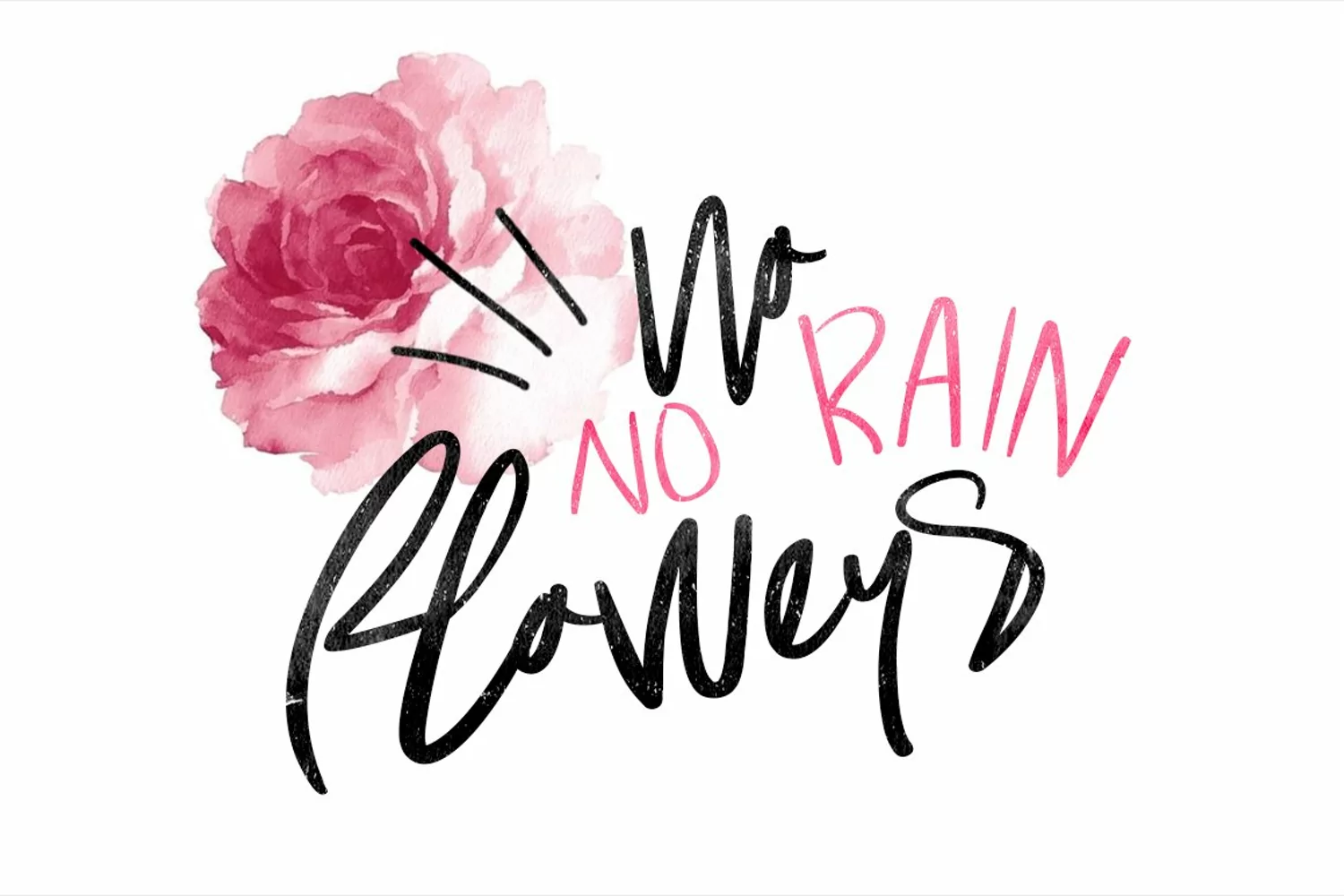
Without You Typeface
Give your designs an authentic handcrafted feel. "Without You" is perfectly suited to logo, stationery, branding, typography quotes, magazine or book cover, website header, clothing, branding, packaging design, restaurant and more. Included Ligatures and Stylistic Alternates.